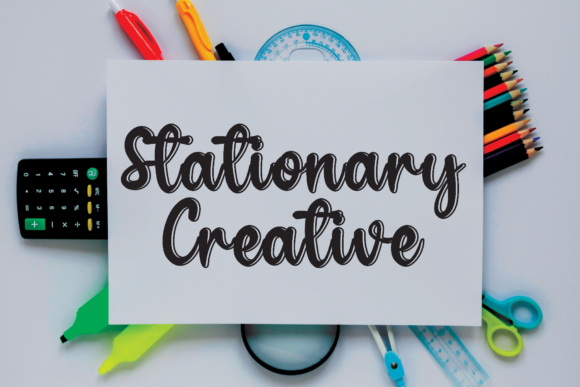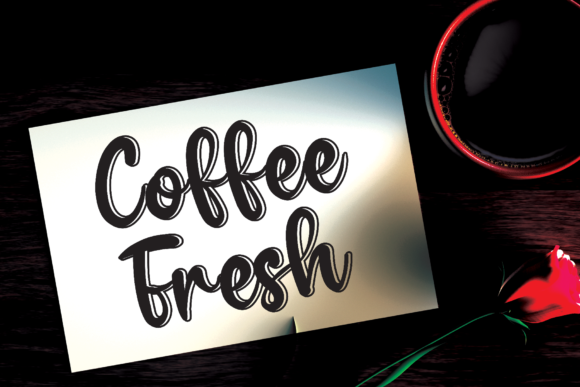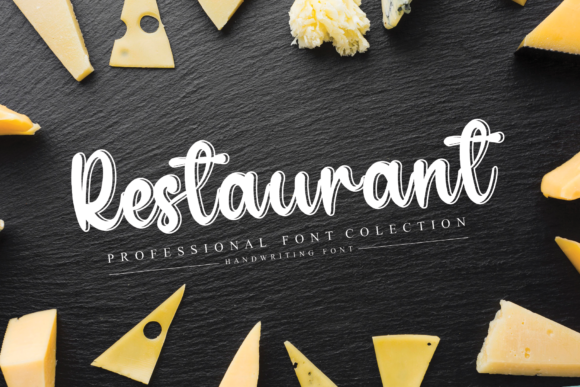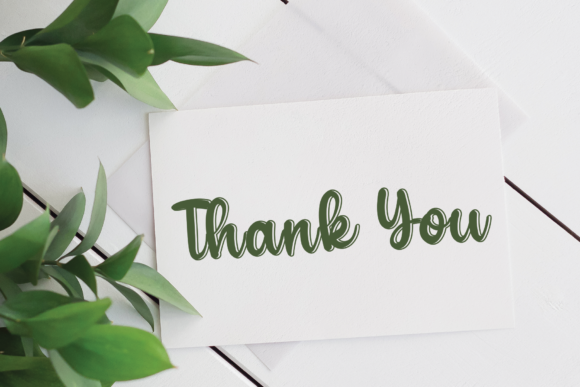
Honey Sheet Font
About Honey Sheet Font
Honey Sheet is a sweet and round lettered handwritten font. Whether you’re looking for fonts for Instagram or calligraphy scripts for DIY projects, this font will turn any creative idea into a true piece of art!